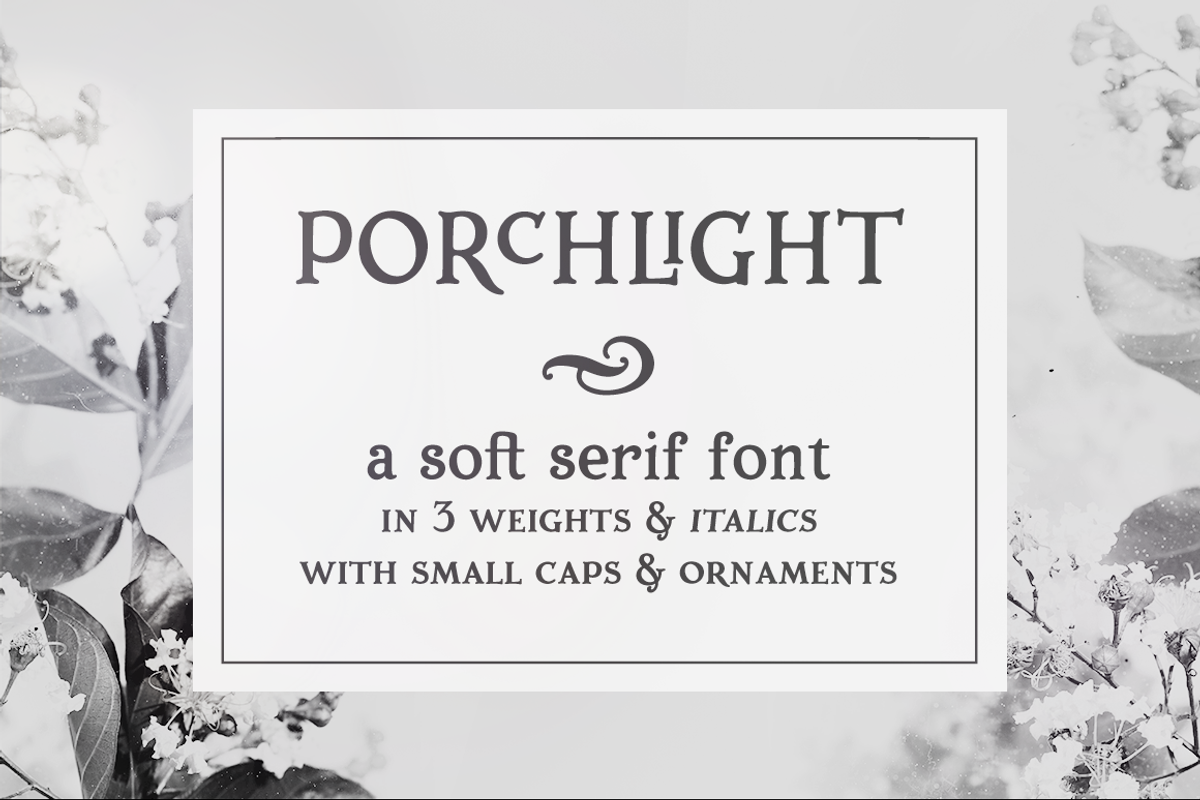
Porchlight Classic Serif Font Free Download is a timeless and elegant typeface designed to bring sophistication to branding, editorial design, invitations, and packaging. With its refined serifs and balanced letterforms, Porchlight delivers a classic look with a modern edge. Please note that you must purchase this font for commercial use, but it is available as a free download for testing purposes. Whether you're creating a luxury brand or a beautifully styled publication, Porchlight Classic Serif Font Free Download offers the perfect blend of tradition and contemporary flair.